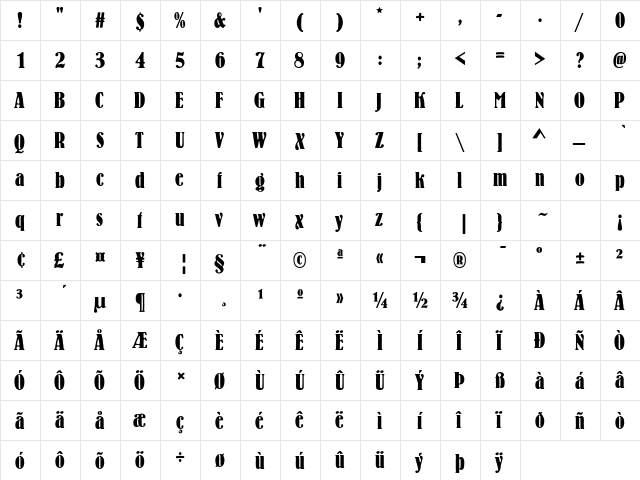
Bernhard Antique Regular
Design Context for Bernhard Antique Typeface
Bernhard Antique has the warm character of retro typography — evoking diners, record sleeves, and the golden age of print advertising.
Font Pairing: Combine Bernhard Antique with a simple slab or neutral sans — period-accurate companions reinforce the vintage feel without competing for attention.
Pro Tip: Lean into Bernhard Antique's period character by pairing it with aged paper textures, muted colour palettes, and vintage illustration styles.